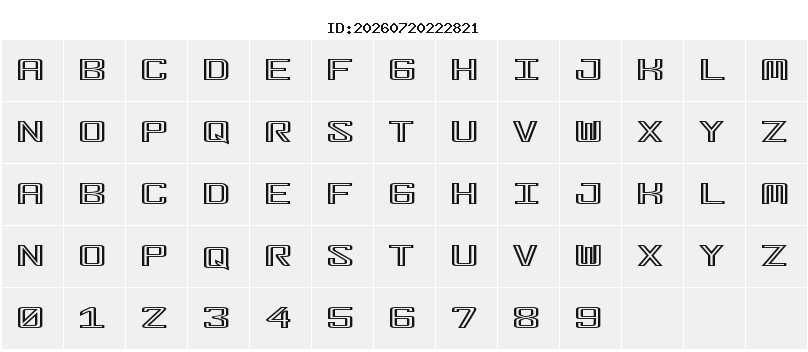
FonderianFineline Preview
• Font Name: FonderianFineline
• Full Font Name: FonderianFineline
• Version: Version 1.00 October 24, 2016, initial release
• Designer: Max Infeld
• Description: Created by Xerographer Studios in Chico, California.
About FonderianFineline.ttf
FonderianFineline.ttf is a modern, elegant sans-serif font designed for ultimate readability and visual harmony. Perfect for branding, headlines, web design, and print materials.